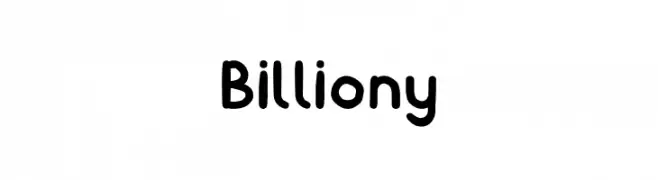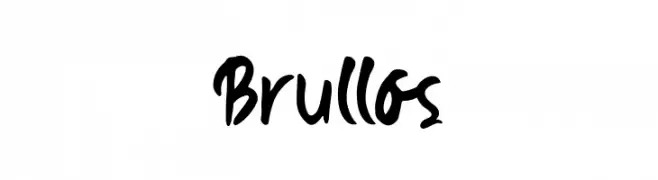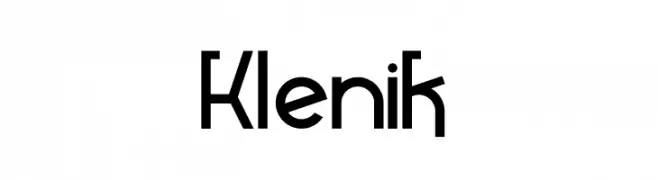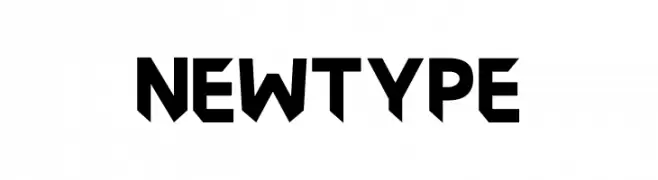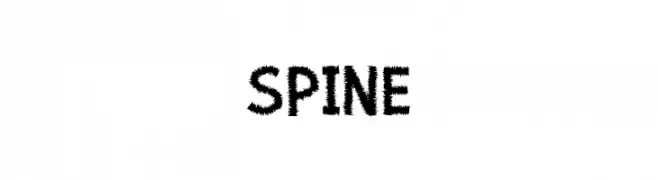
A playful, decorative font with whimsical curls and loops.
A classic script font with elegant, flowing curves and a handwritten appearance.
A playful, rounded font with bold, smooth curves and a friendly appearance.
A modern, geometric stencil font with a bold and industrial aesthetic.
A bold, geometric font with sharp angles and a futuristic style.
A bold, geometric font with a modern and futuristic style.
A modern, bold font with angular cuts and a tech-inspired style.
A bold, spiky font with a dynamic and edgy appearance.
A bold, energetic, hand-drawn font with brush-like strokes and a lively appearance.
A modern, geometric font with clean lines and a sleek, contemporary style.